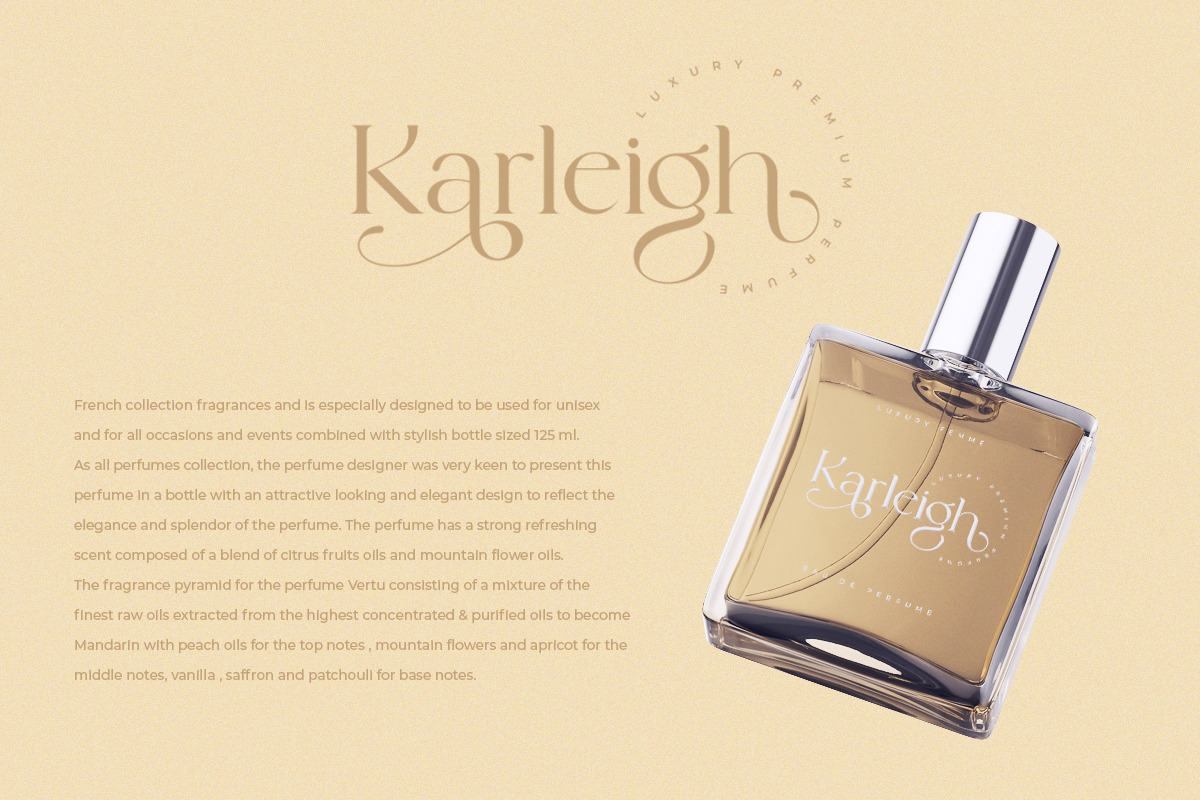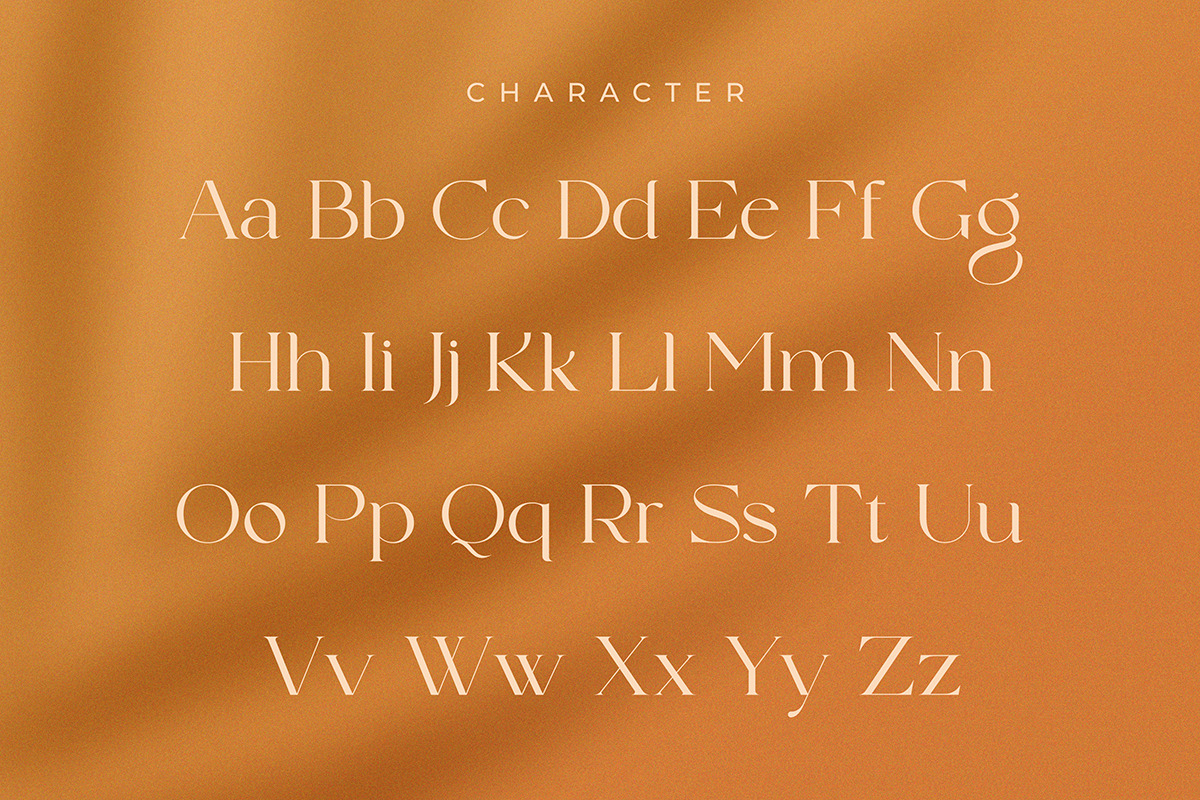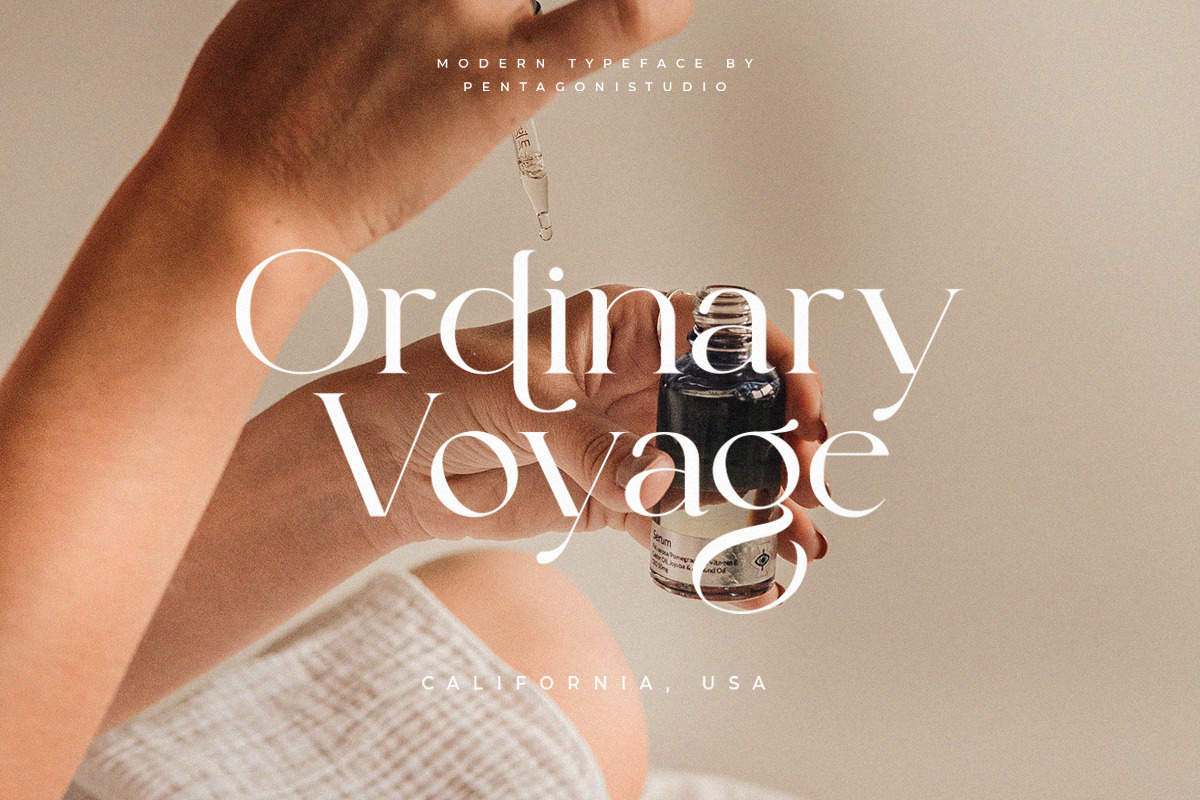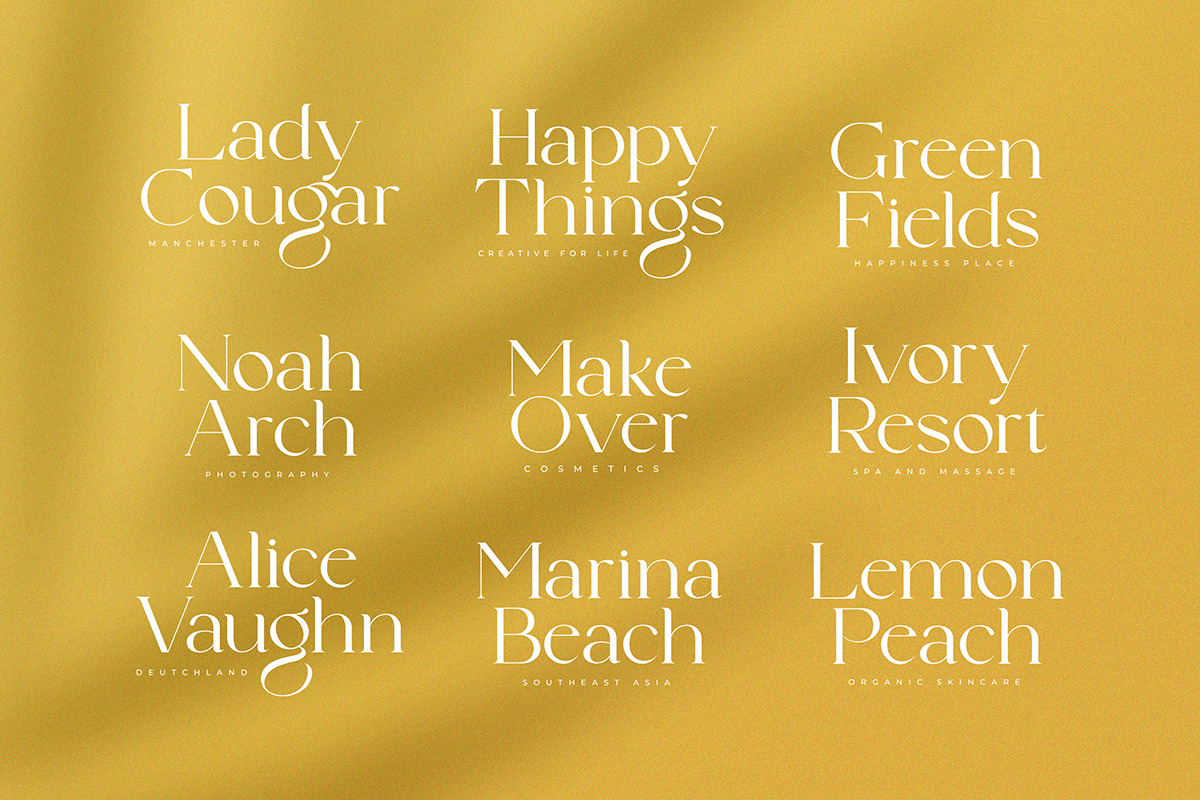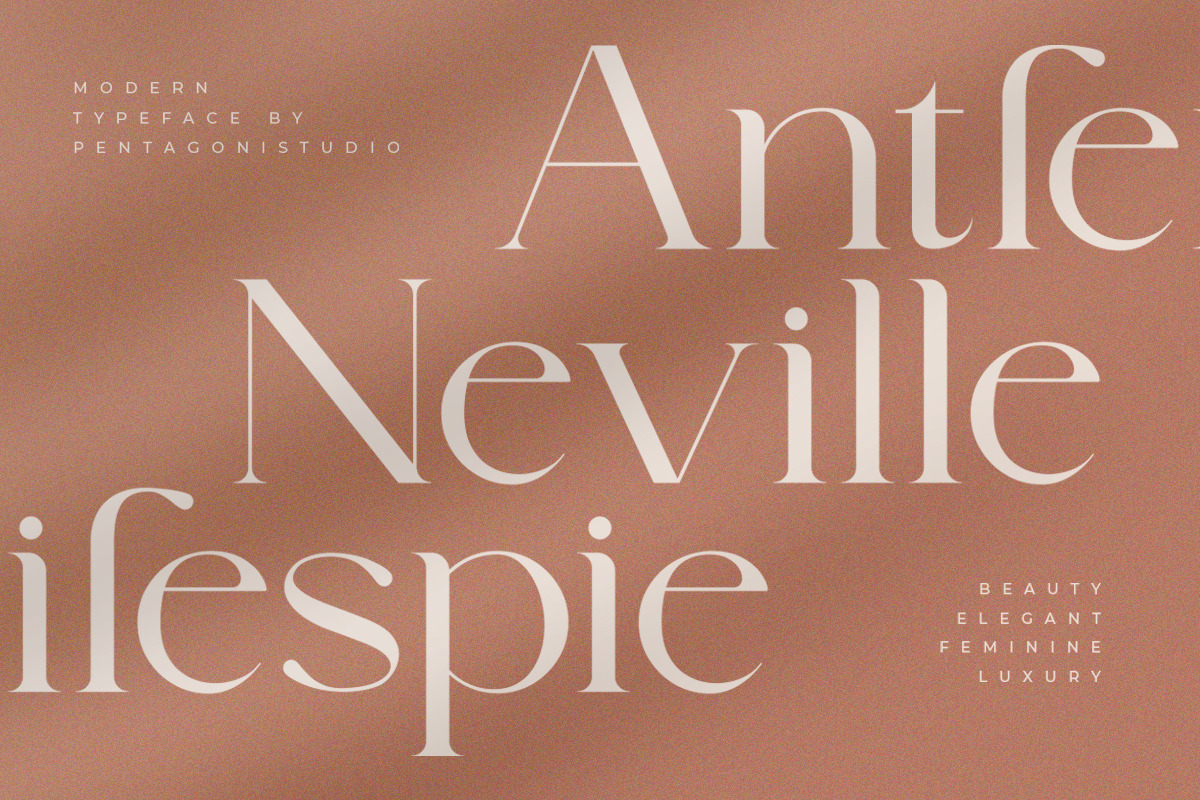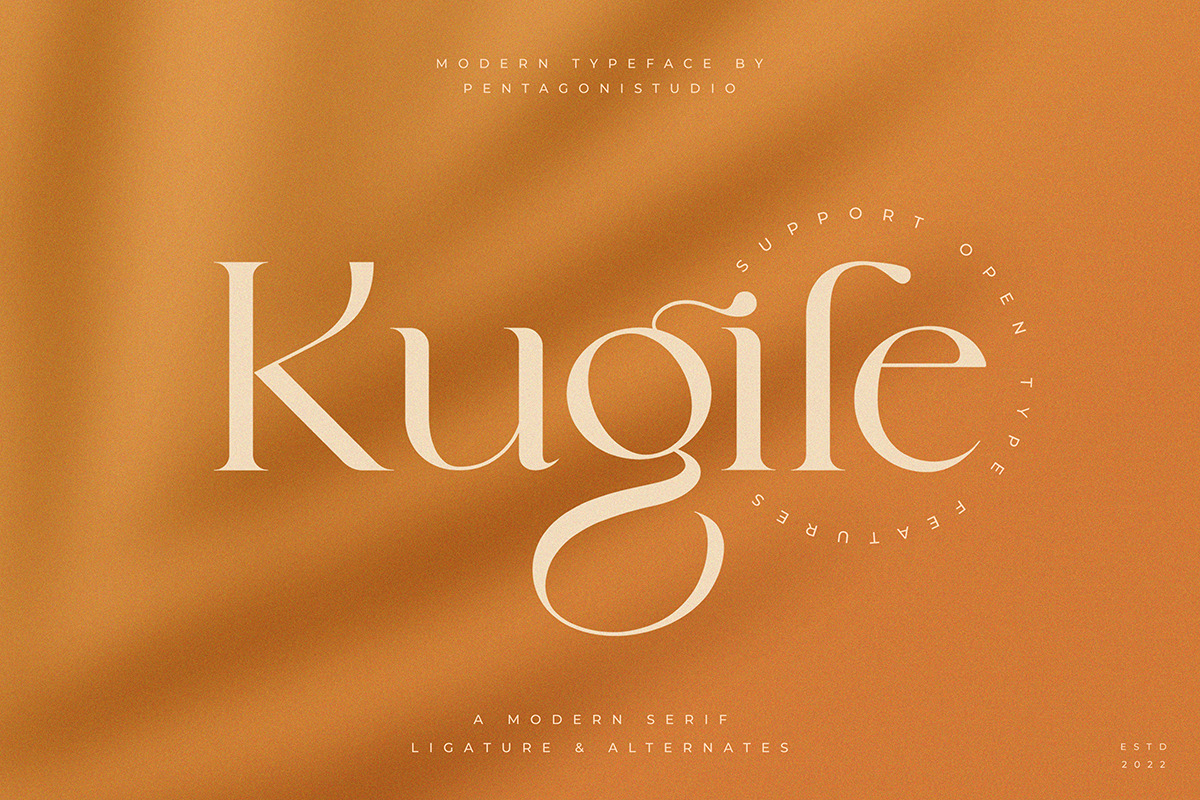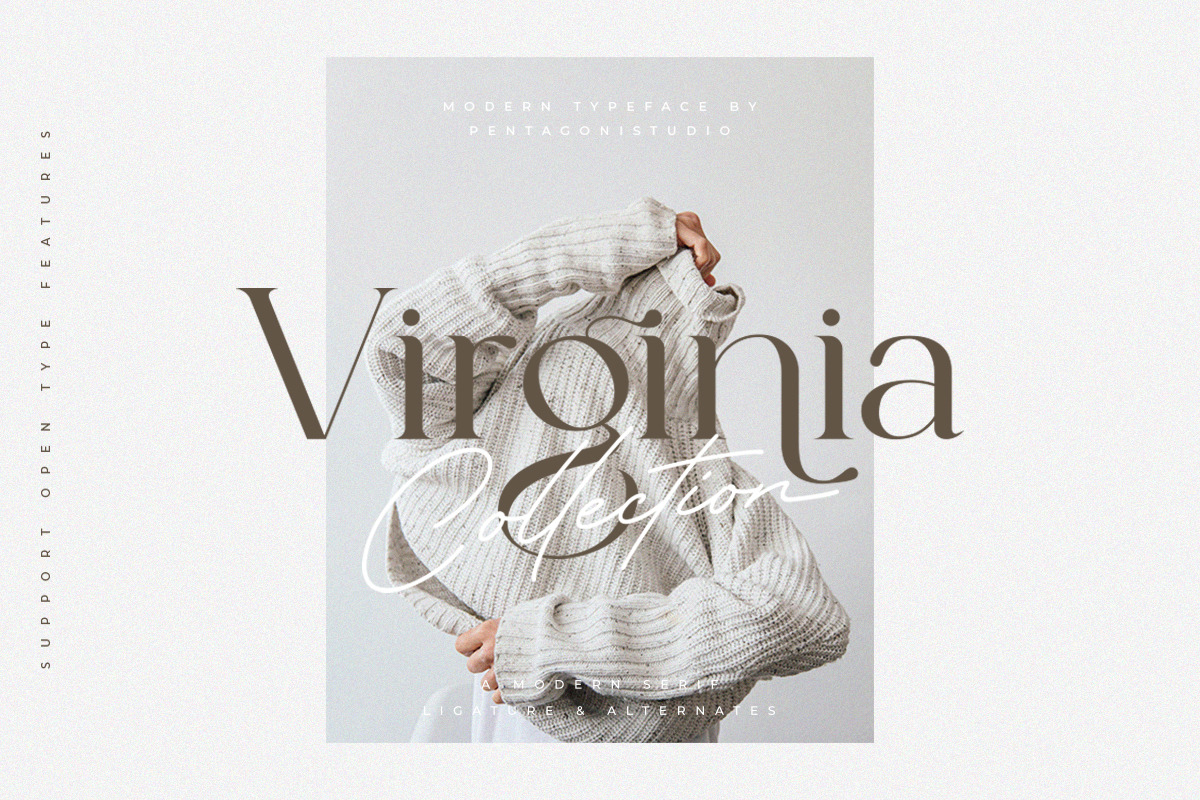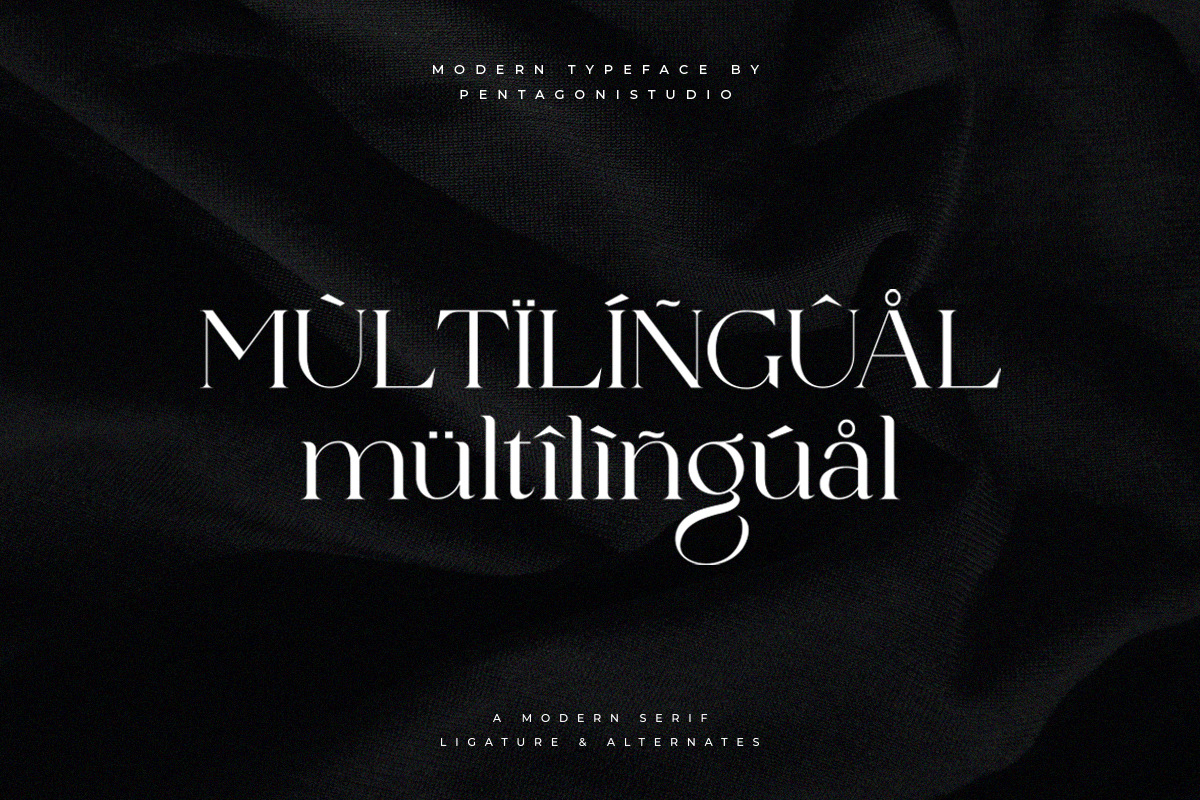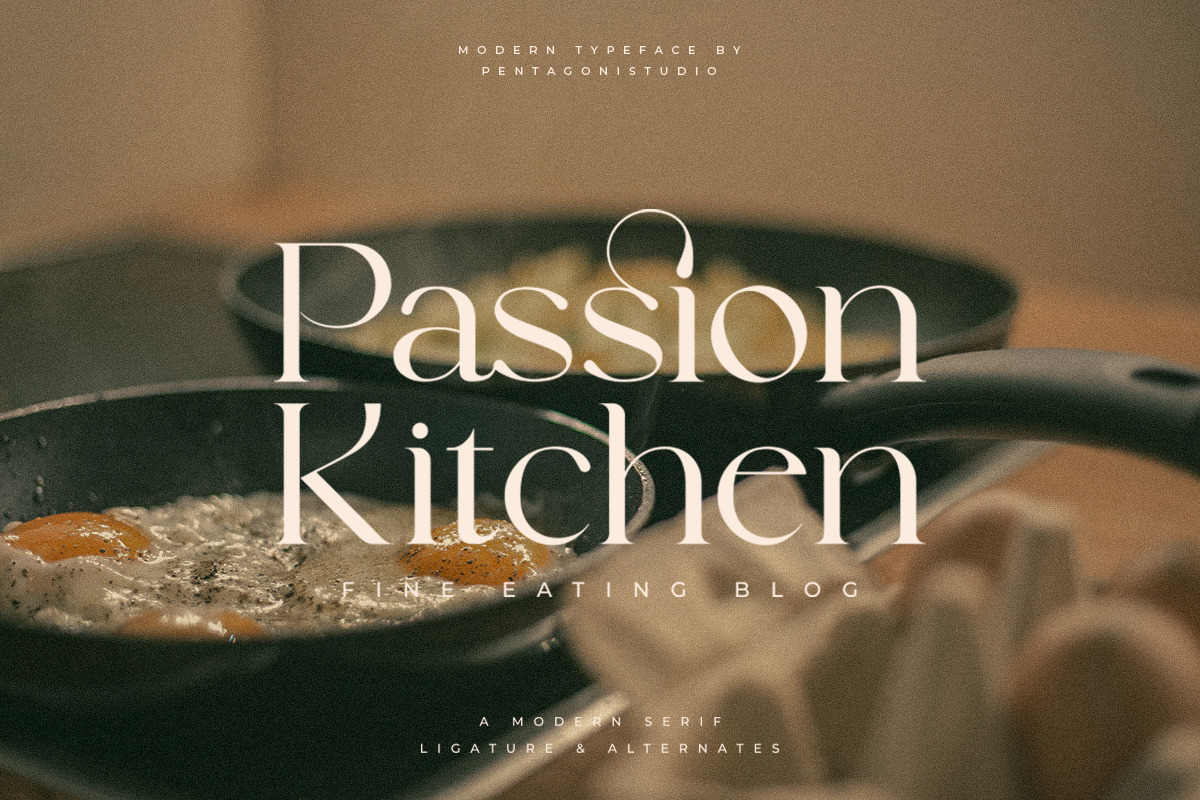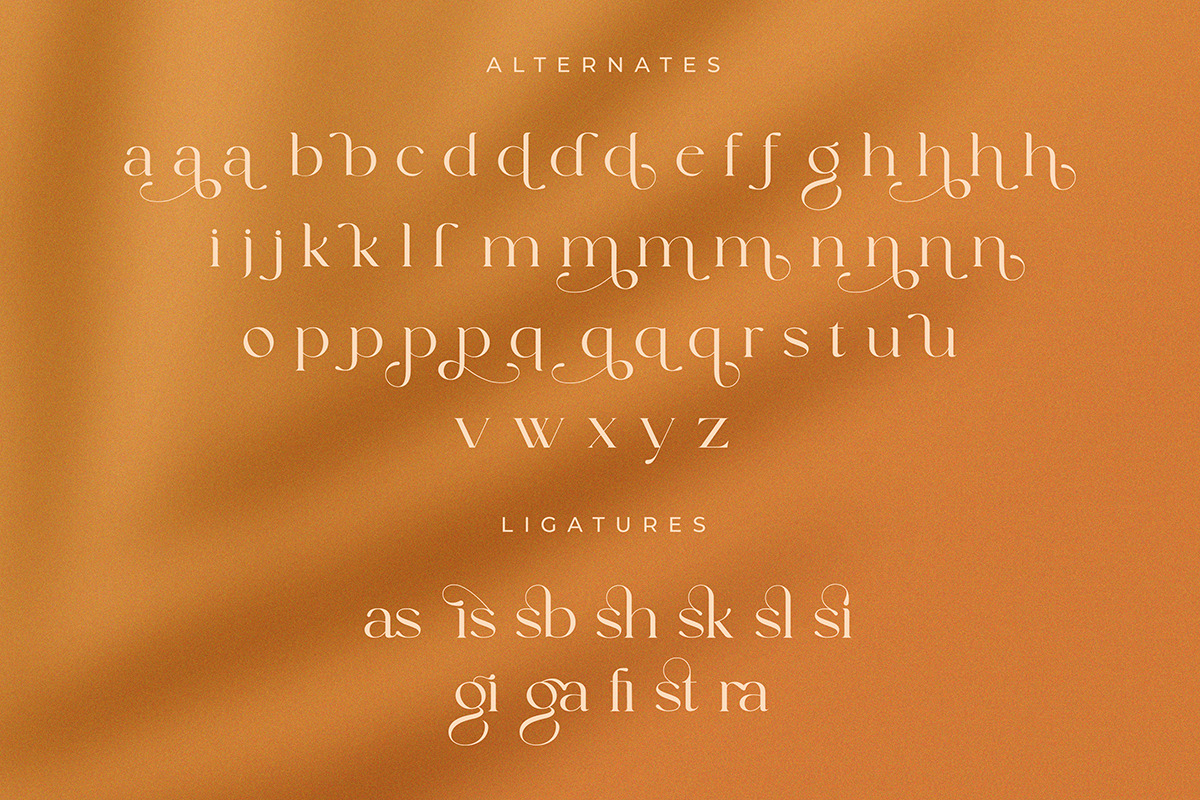
Kugile | Classy Serif Font
Kugile Is An Classy Serif Font Inspired By Luxury and Elegant Character.
The font is very attractive, however it creates spelling errors. It wont spell a double SS word and replaces an S with an A. Example: effortlessly comes out as effortleasly. Sustainably comes out as sustainbly. Ive tried to contact the designer but have not had a reply. I wouldn't download this font.
The ligatures look ridiculous. Otherwise, it's fine. Seller gave me incorrect information and then proceeded to ignore me when I pointed that out, so I never got my question answered.